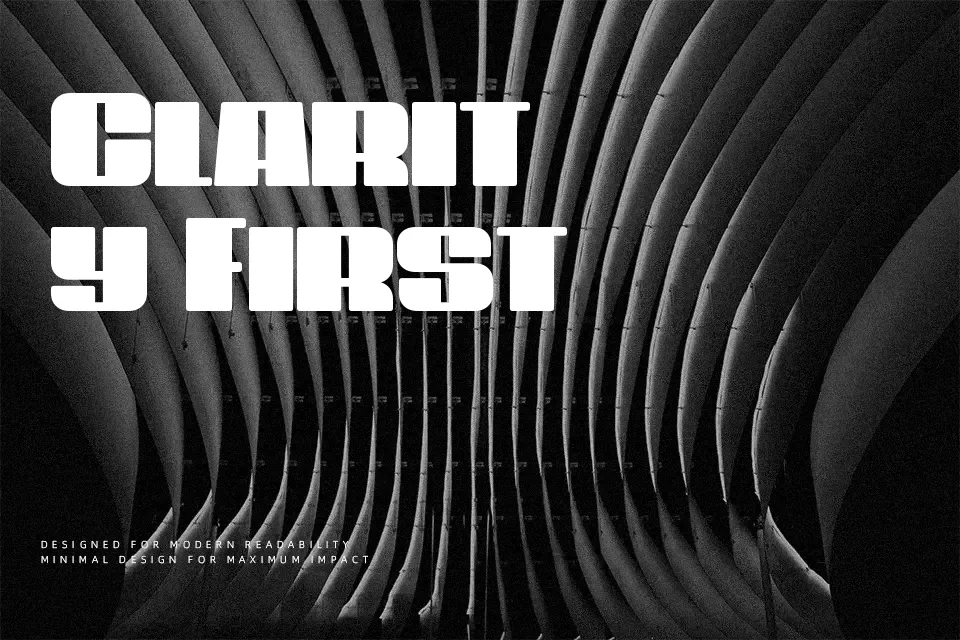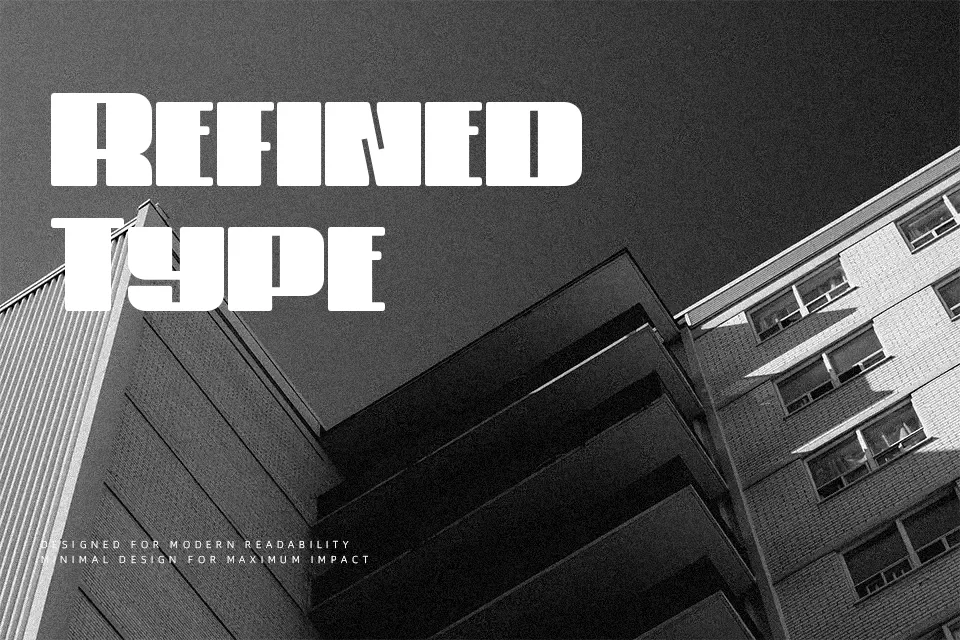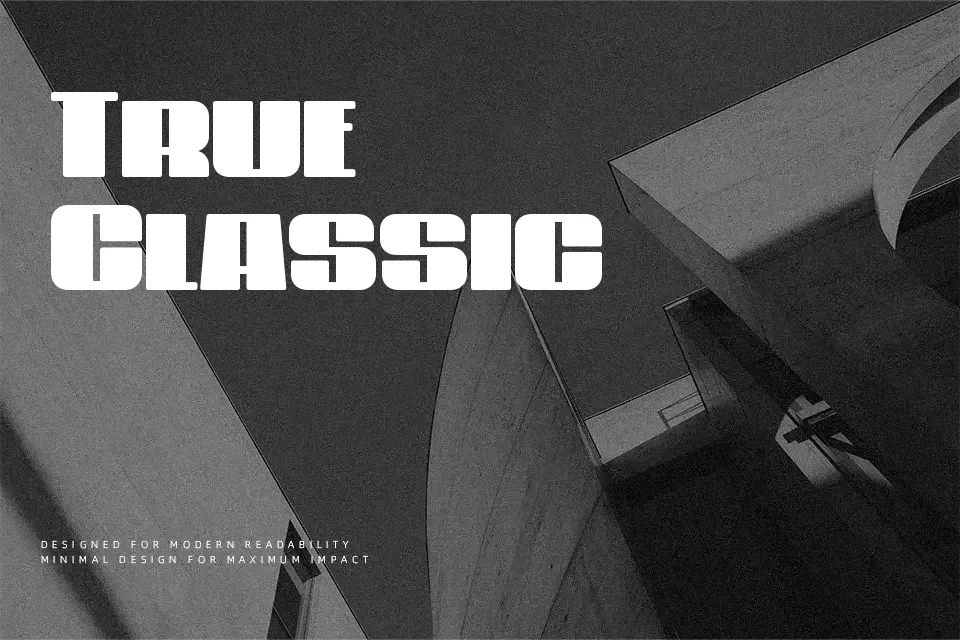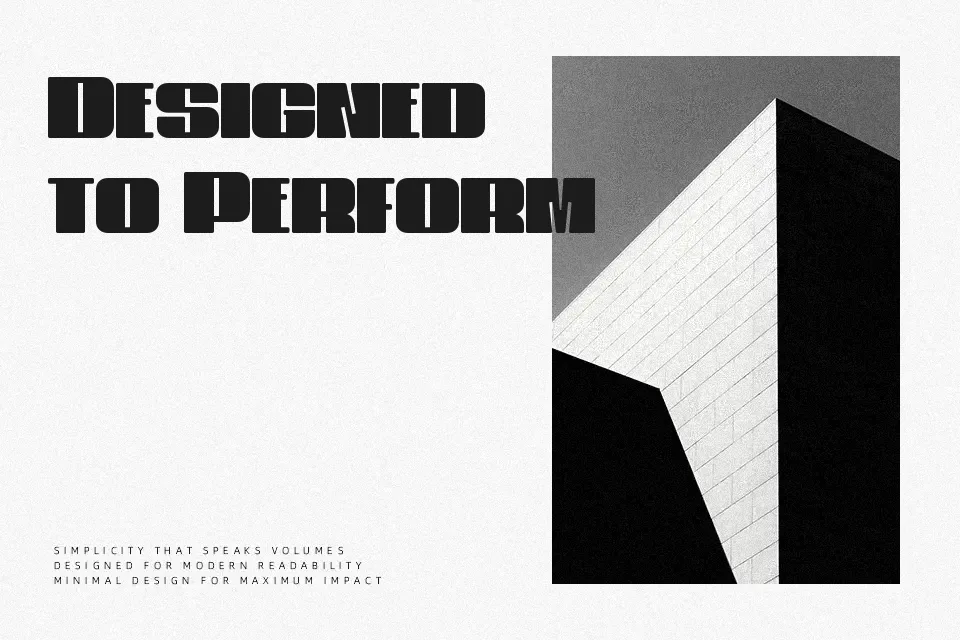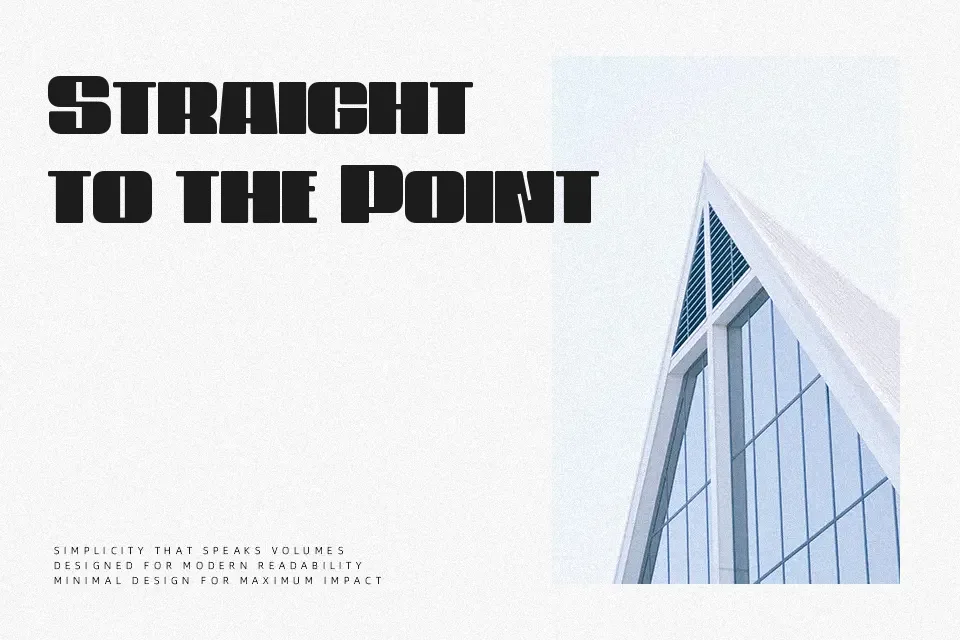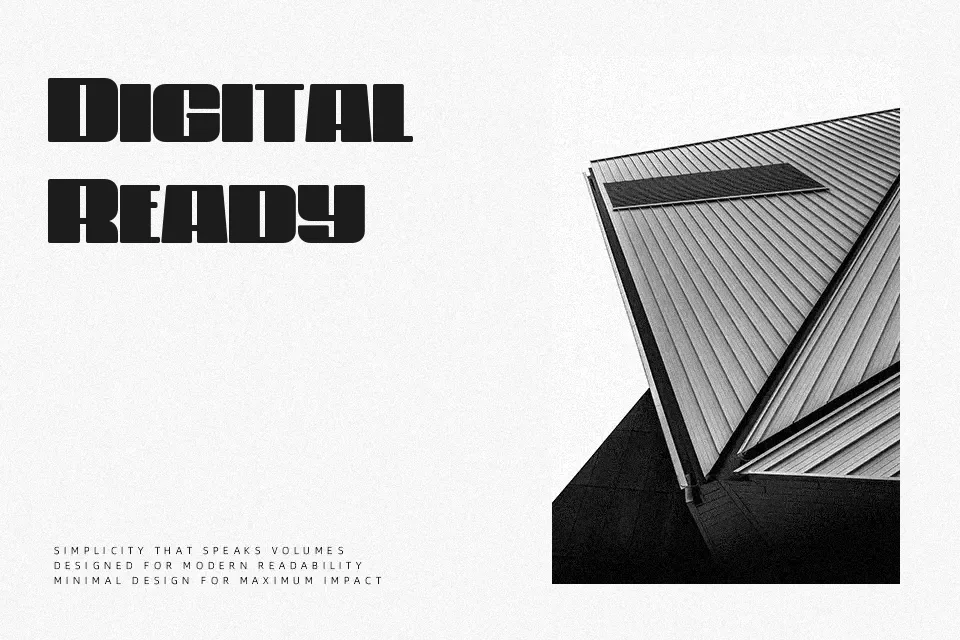
Block Marys Font
Designed by Kulokale Studio
Block Marys is a highly structural, blocky display sans serif characterized by an extra-bold weight and an extra-expanded width. The letterforms feature a rigid, geometric construction that commands immediate attention, striking a compelling balance between retro nostalgia and modern minimalism. Its heavy strokes deliver a solid, unyielding visual texture that excels in large formats.
This typeface functions exceptionally well when typography must act as the primary focal point, such as in aggressive sports branding, streetwear apparel graphics, or commanding editorial headlines. However, its imposing structure means it struggles with readability in lengthy paragraphs or applications requiring subtle elegance. Compared to standard grotesques, it trades everyday versatility for sheer visual impact.
Command-driven editorial headlines
High-energy sports branding
Streetwear apparel graphics
Attention-grabbing event posters
Long-form body text or articles
Designs requiring subtle typography
Small-scale print materials
Perfect for branding, headline, and poster, with a bold and display style.